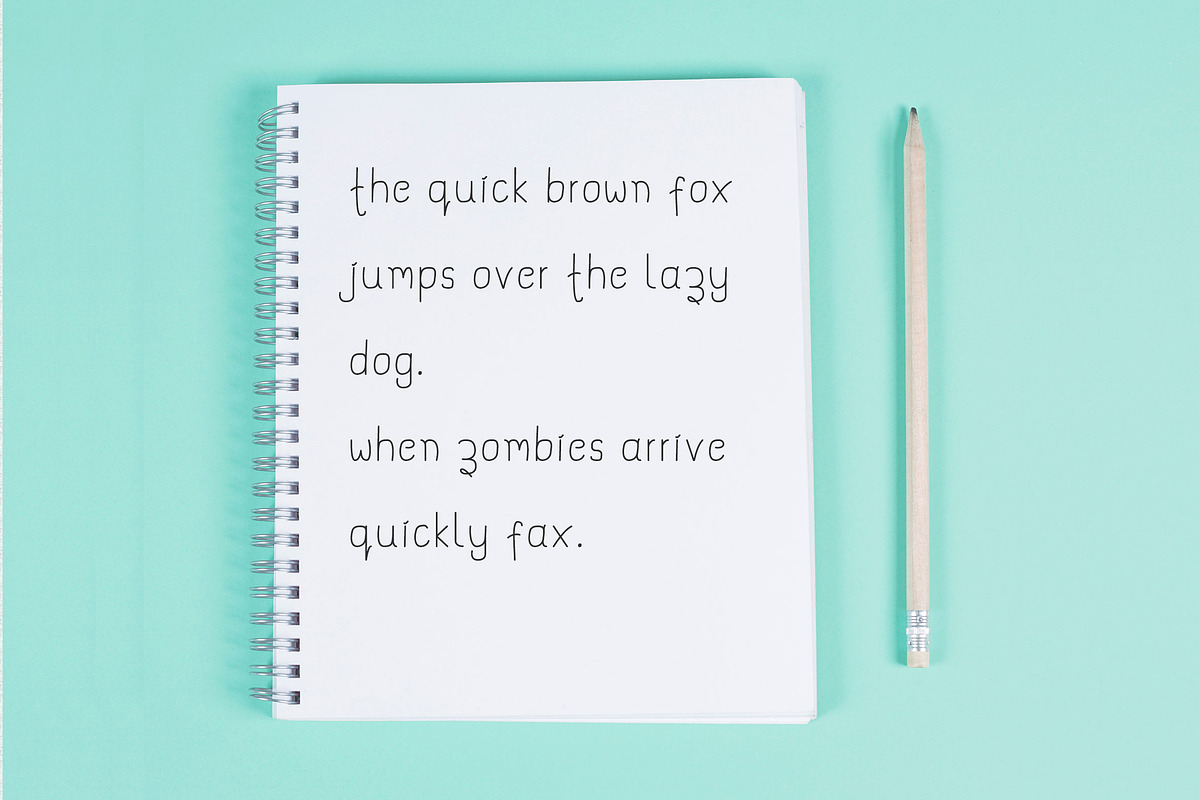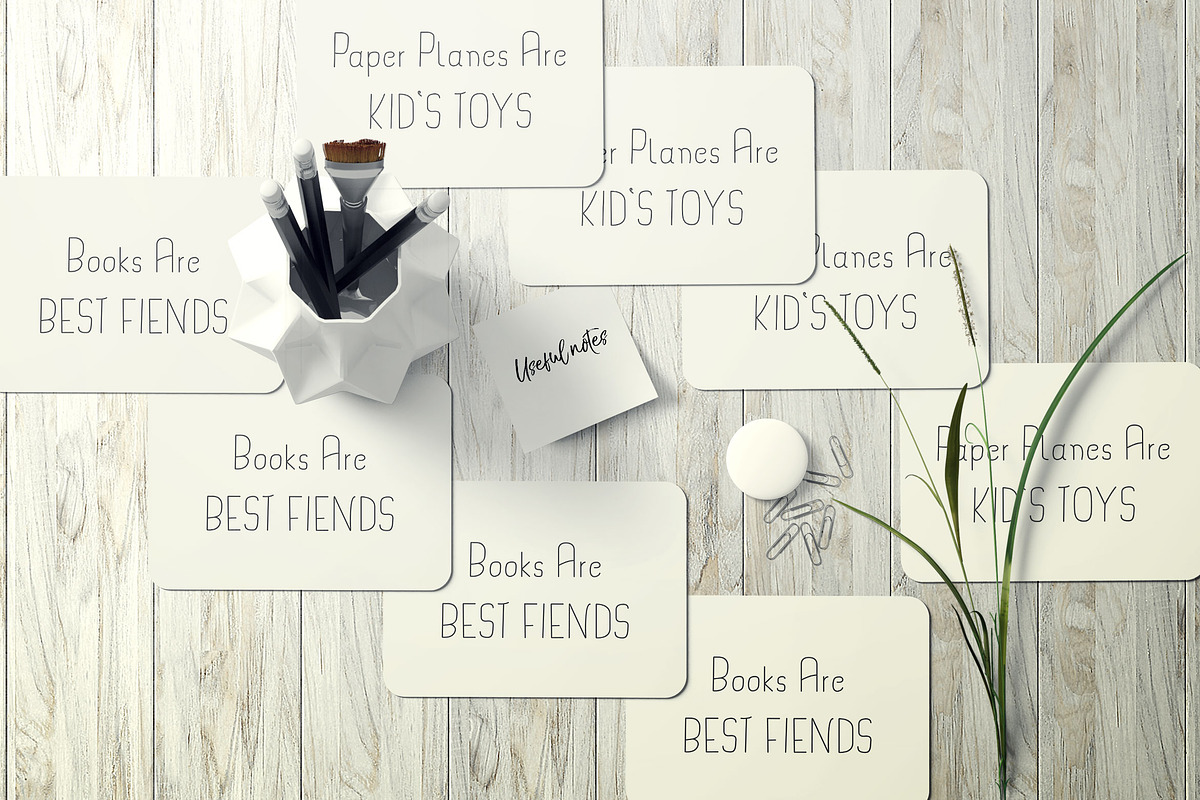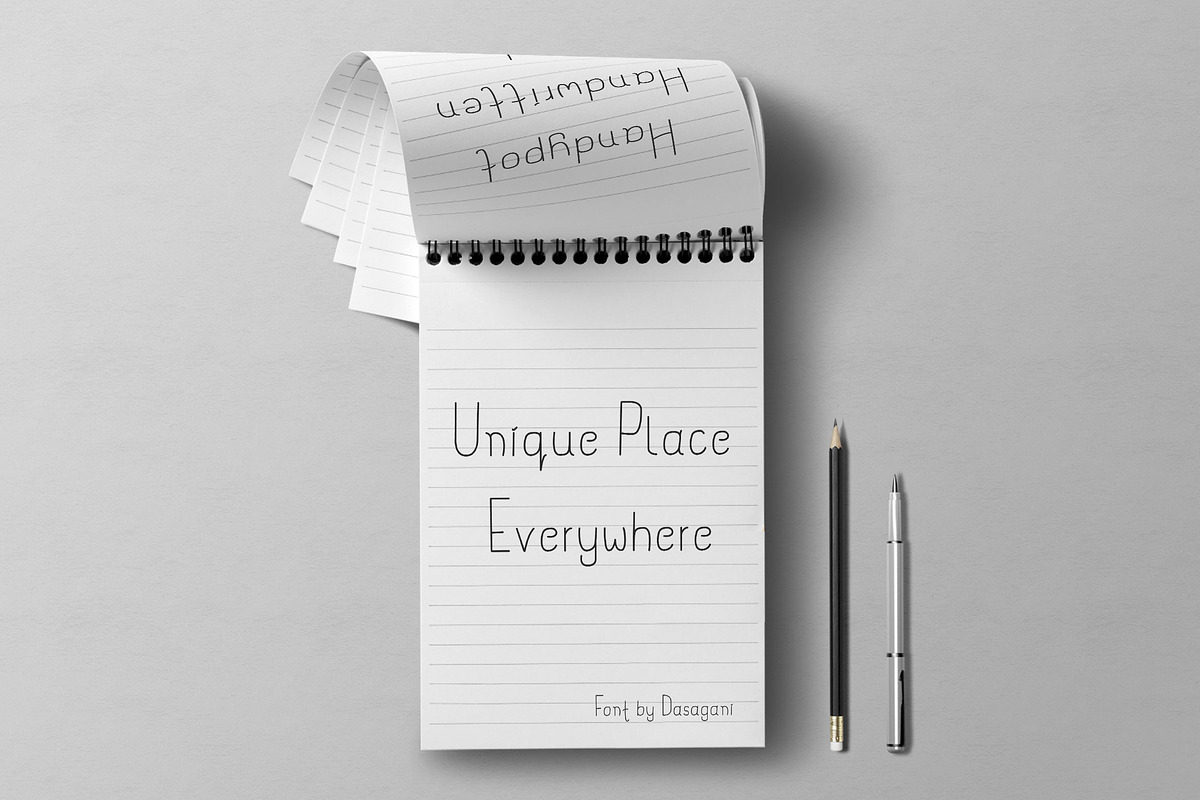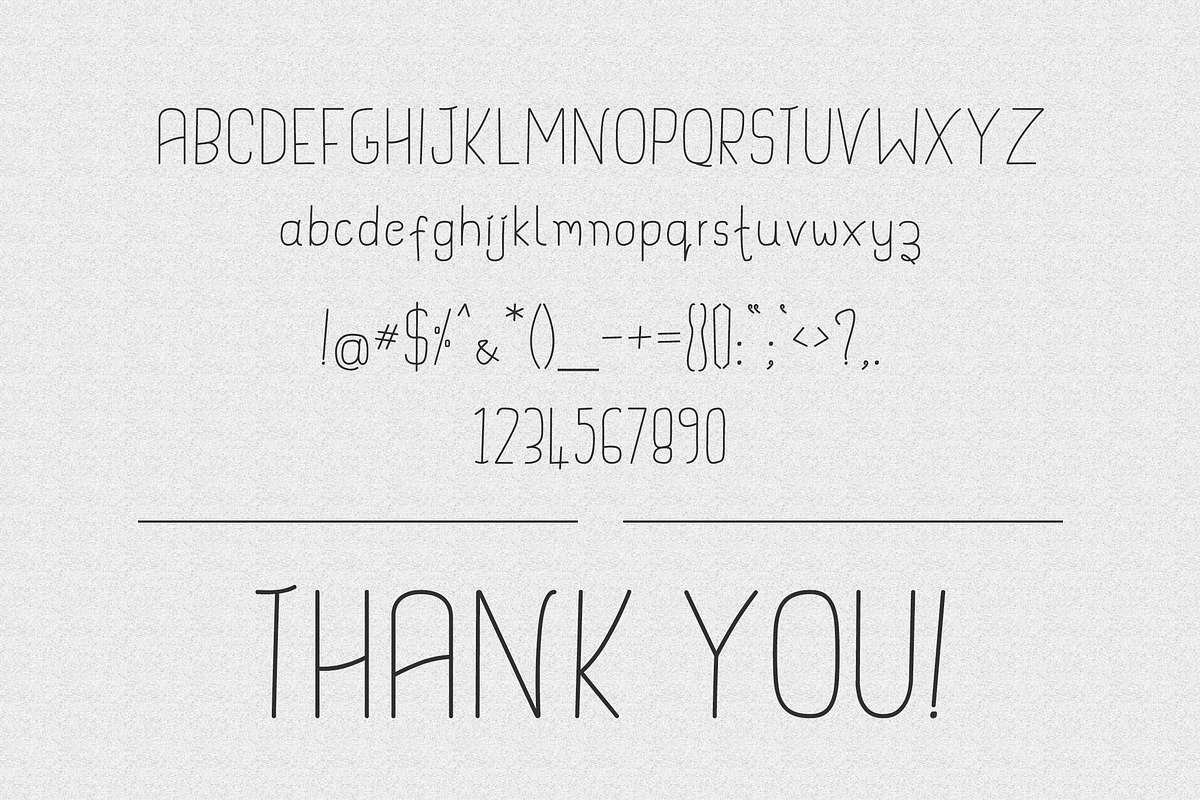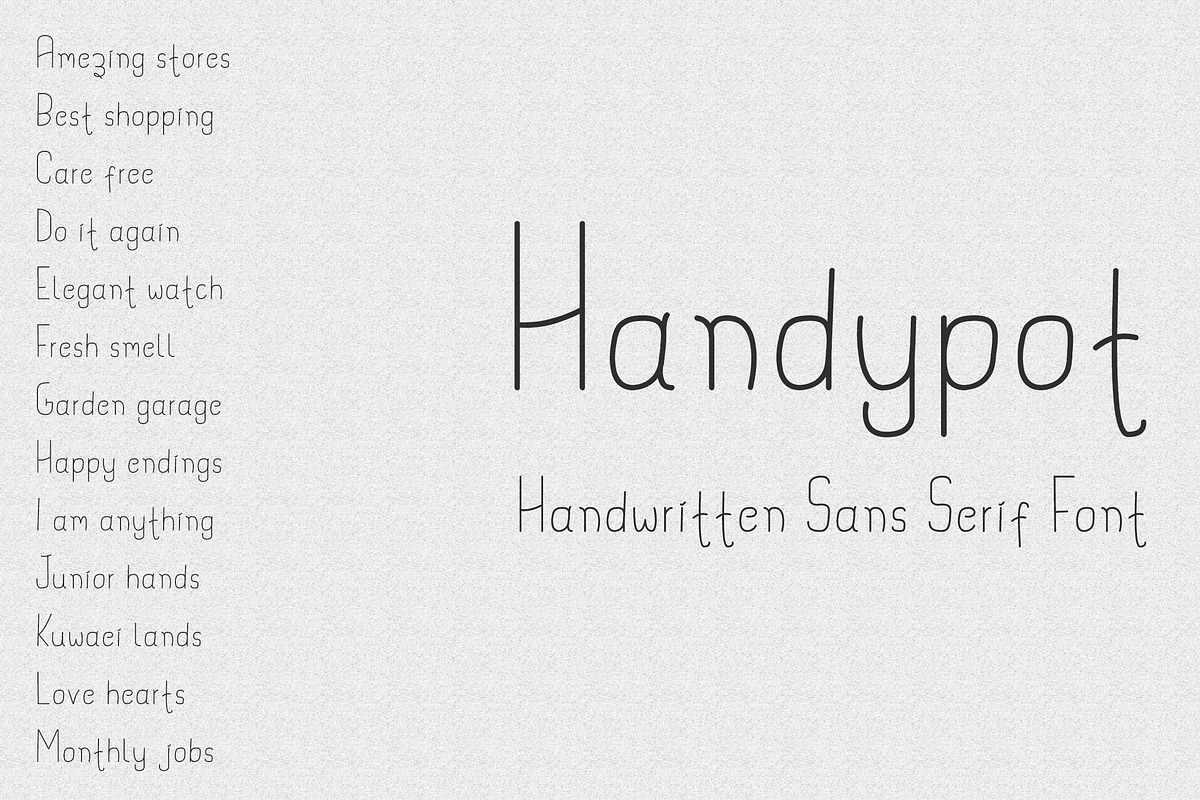
Handypot - Handwritten Font
Handypot is Playfull, simple and regular type monoline font - it will be good use for kids games, apps, casual writings, books and invitations and more.
Handypot - Handwritten Font by Dasagani fits naturally into Branding, posters, packaging, typography.